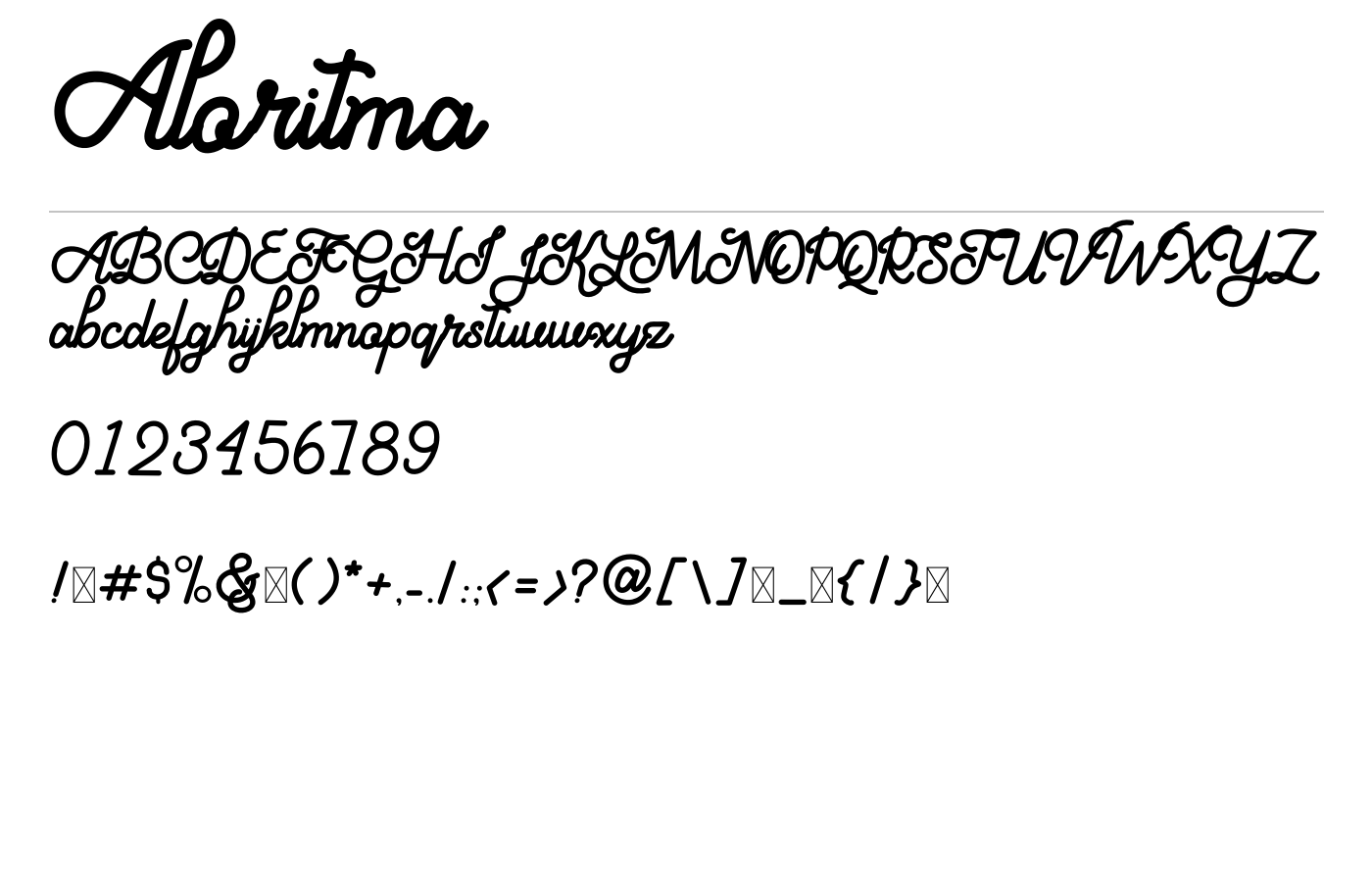
Aloritma is a charming script font with a smooth, flowing style that mimics elegant handwriting. Its medium weight and moderate contrast create a warm, approachable feel, making it ideal for invitations, branding, and creative projects that want to convey a personal, refined touch. This font works best in designs that seek a blend of classic elegance with a friendly, handcrafted vibe.
Aloritma Font